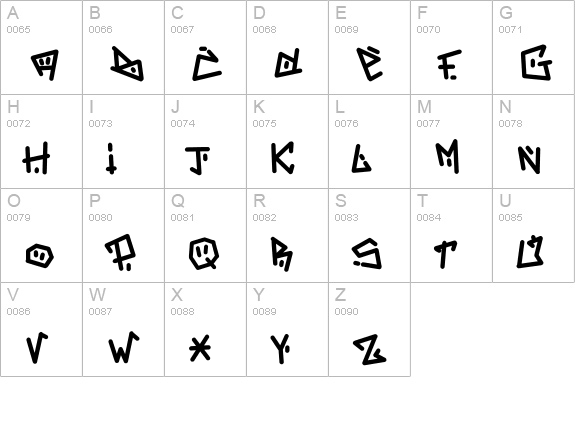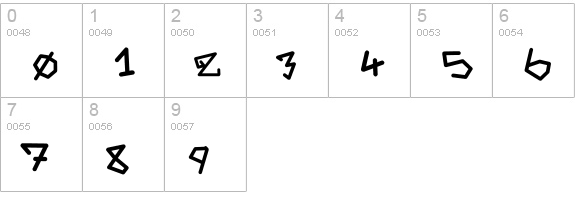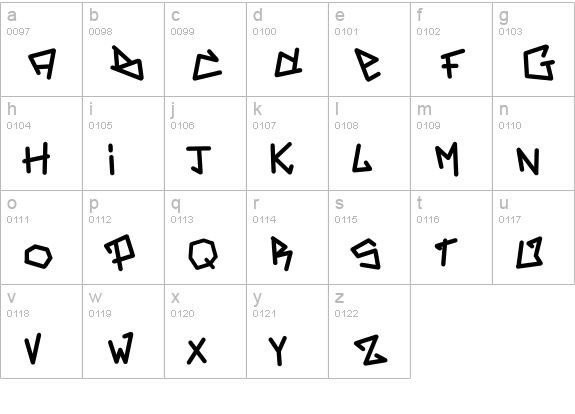
NewSymbolFont Font Details
Introducing NewSymbolFont, a versatile and stylish font that will take your designs to the next level. This unique font features a wide range of symbols and characters, making it perfect for adding a touch of creativity to your projects. With its sleek and modern design, NewSymbolFont is sure to make a statement and capture the attention of your audience. What's even better is that NewSymbolFont is available for free download at FontsMarket.com! Take advantage of this amazing opportunity to enhance your designs with this exceptional font without any cost. Whether you're working on a graphic design project, creating a logo, or designing a website, NewSymbolFont is the perfect choice to add a touch of sophistication and style. Download NewSymbolFont today and elevate your designs to new heights!